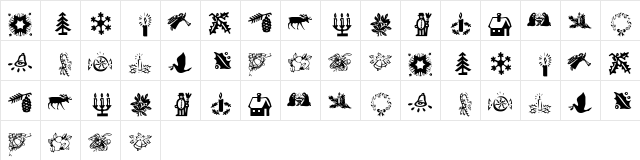
KR Christmas Time 2 Regular
Design Context for KR Christmas Time 2 Typeface
KR Christmas Time 2 is a composed and adaptable typeface that performs quietly and consistently across a wide range of design contexts.